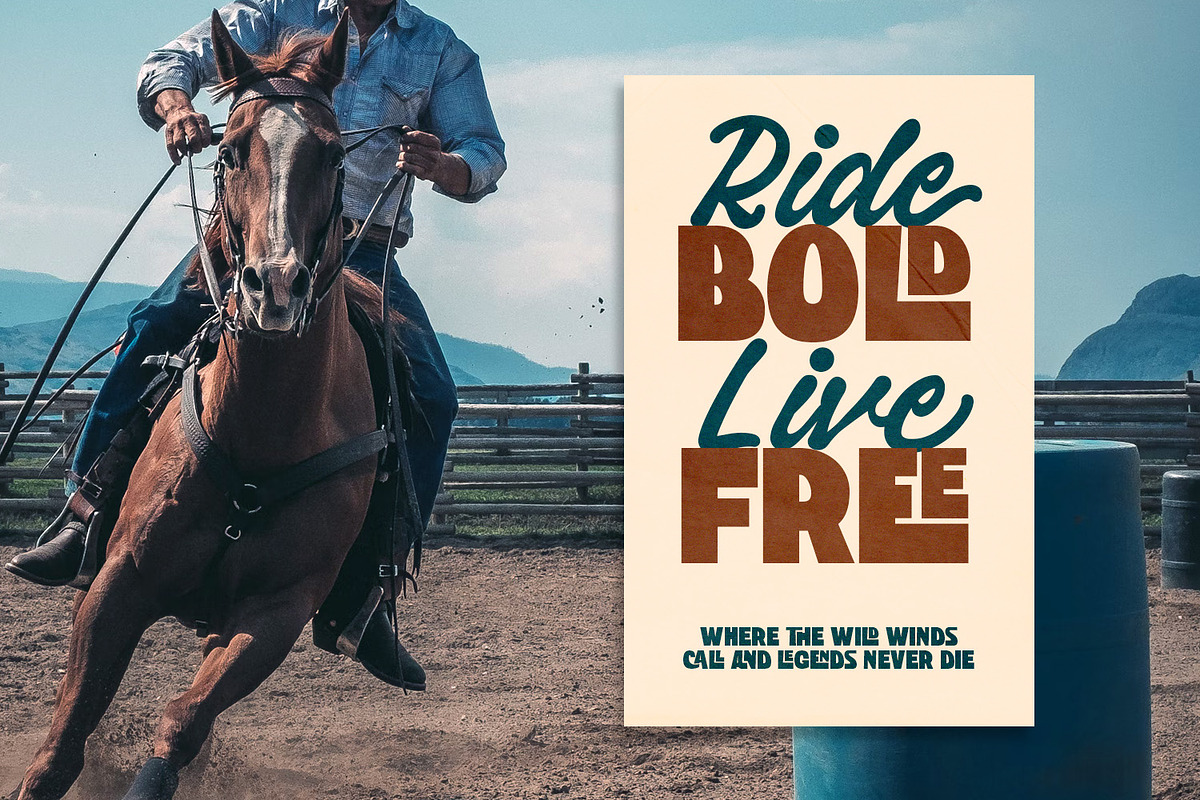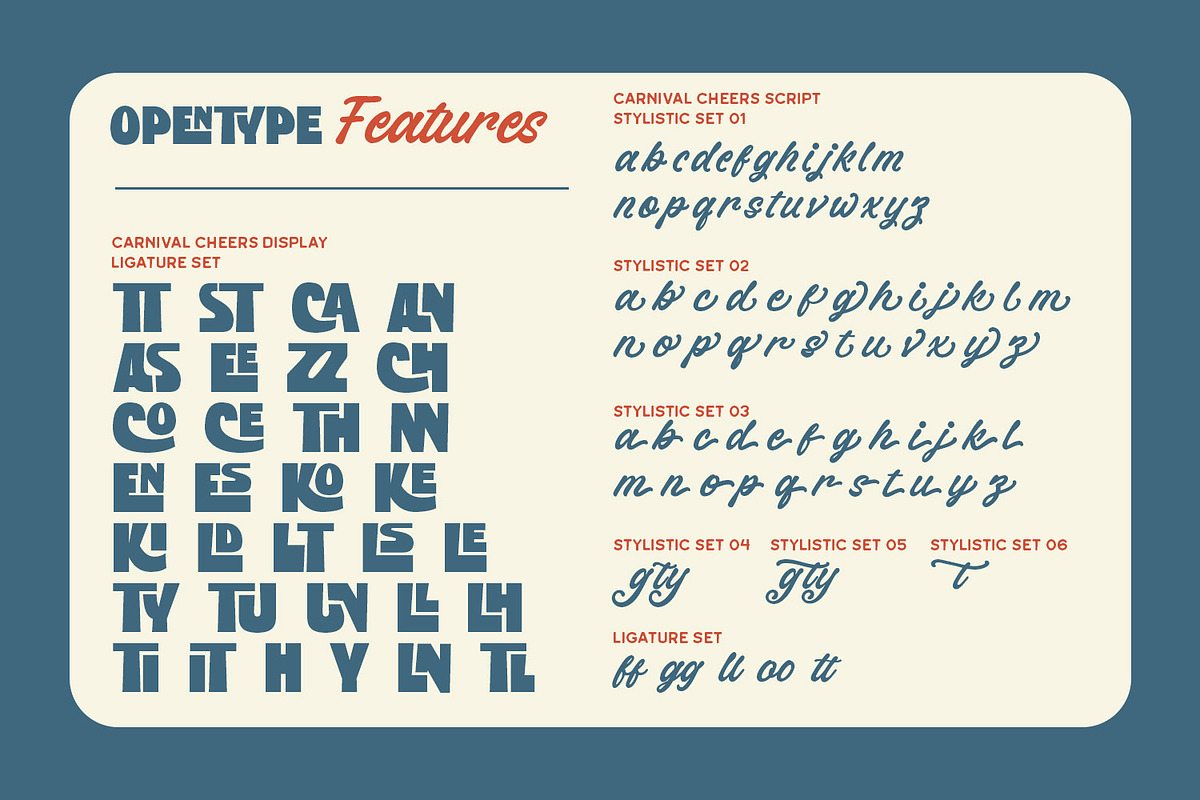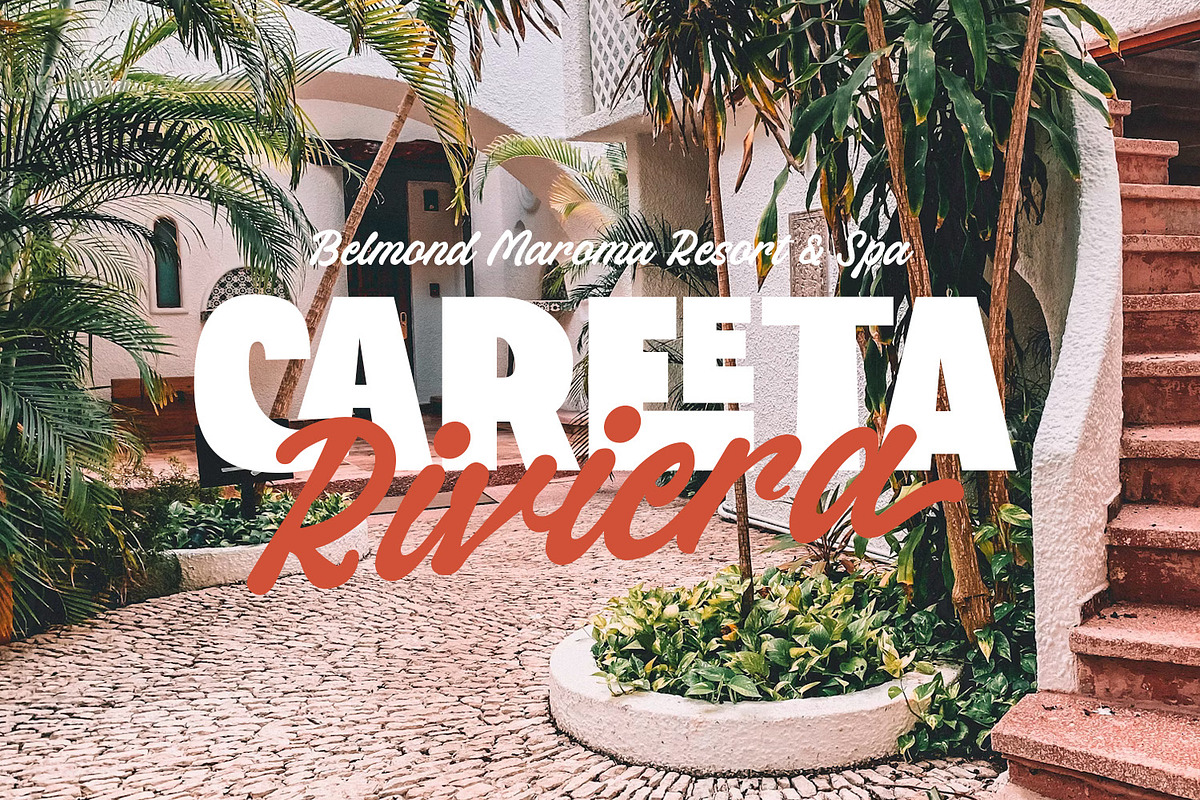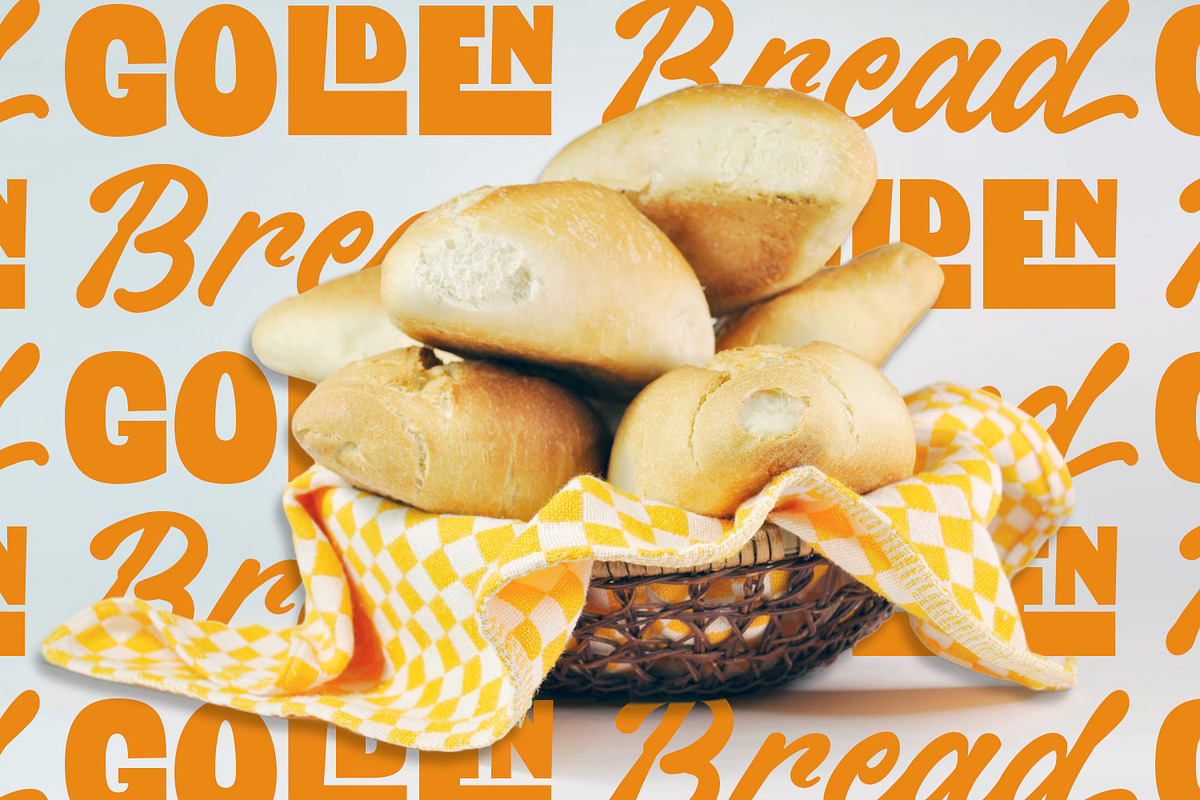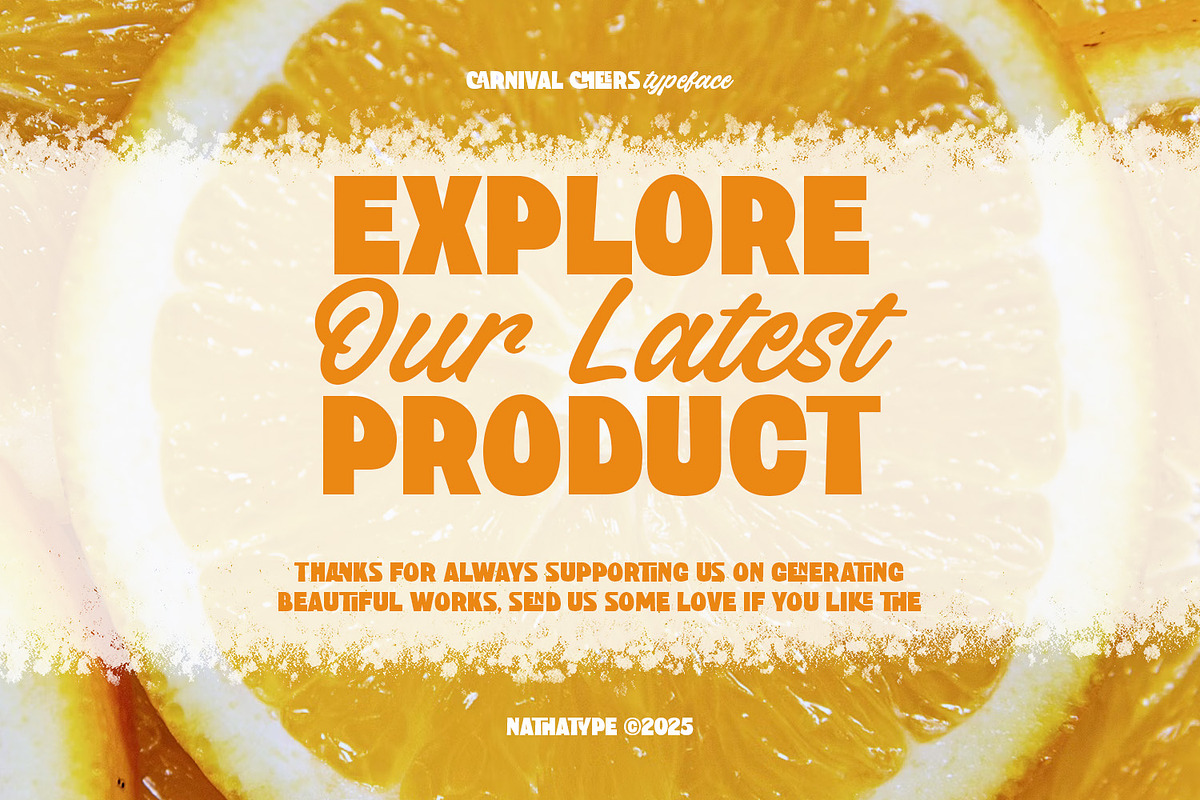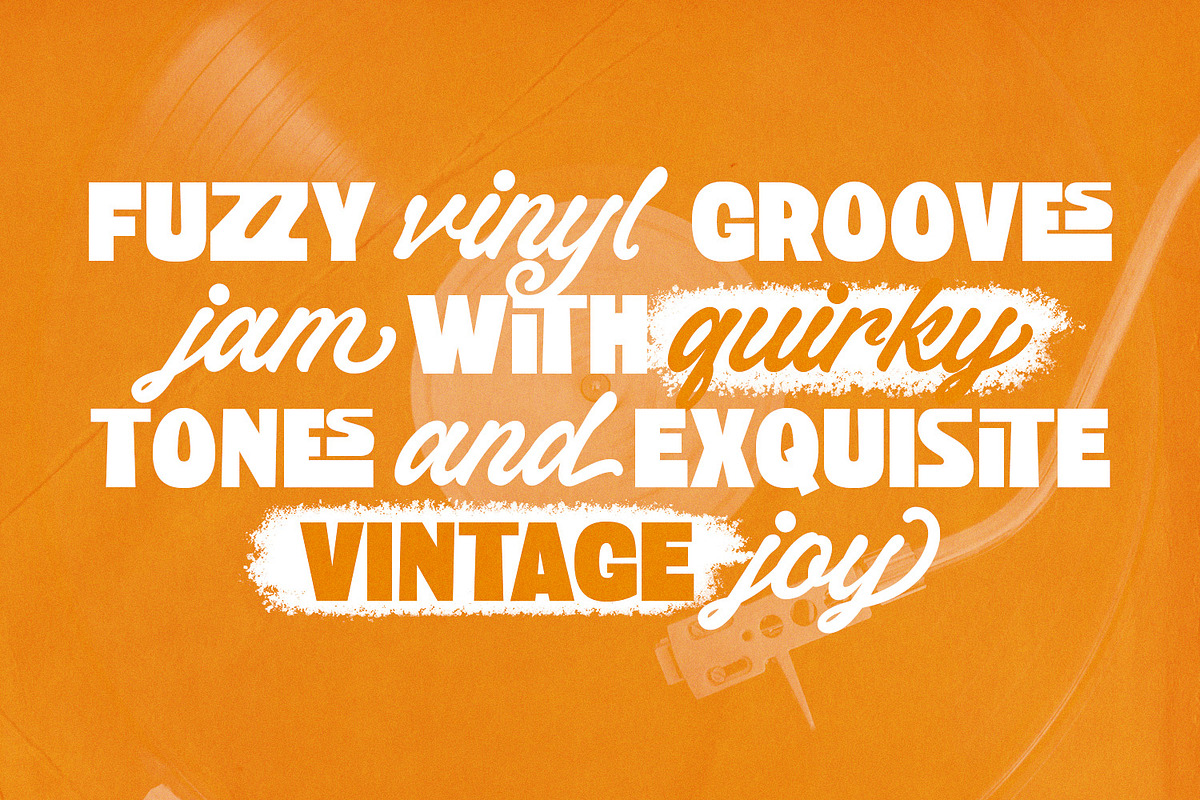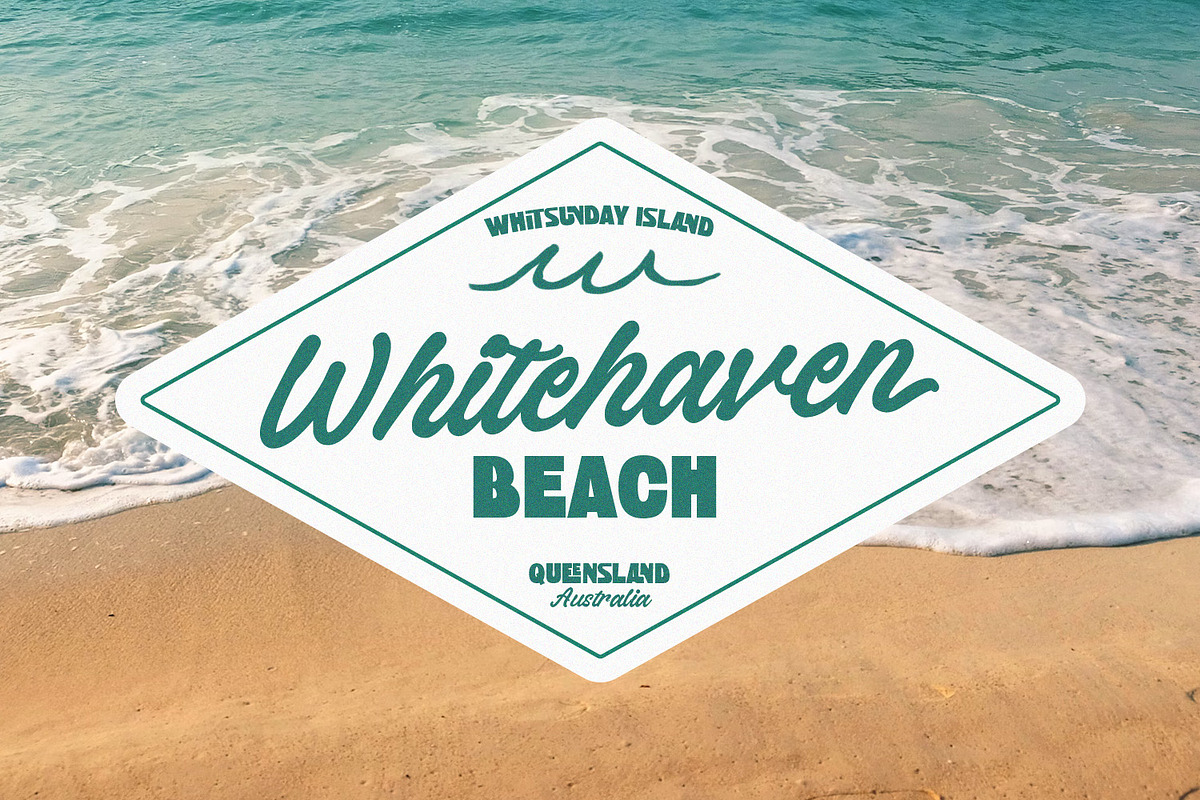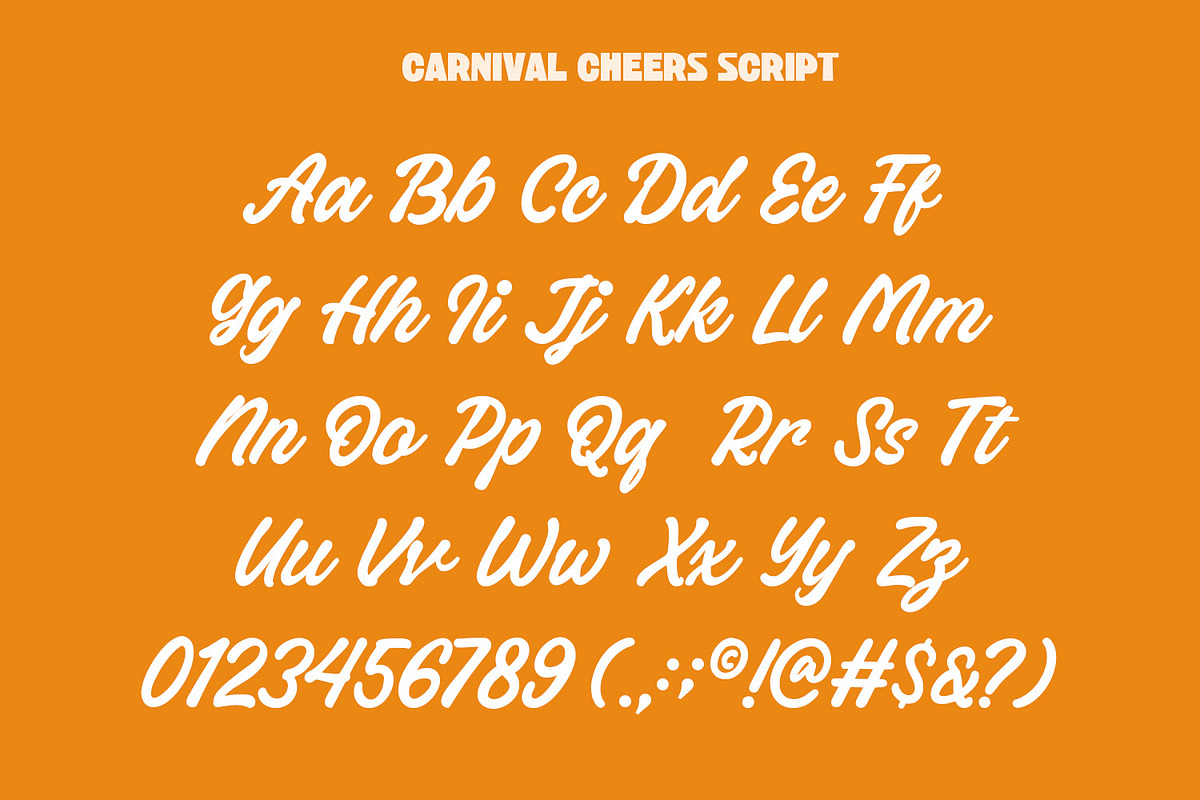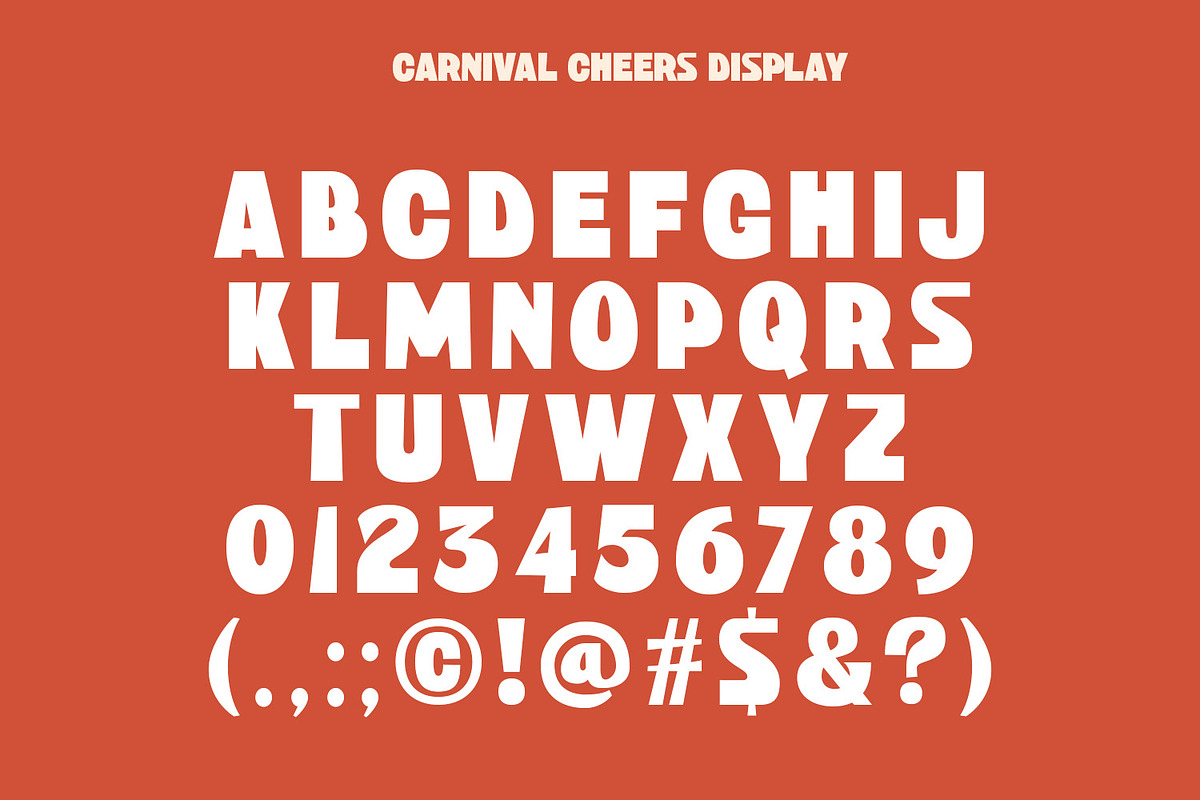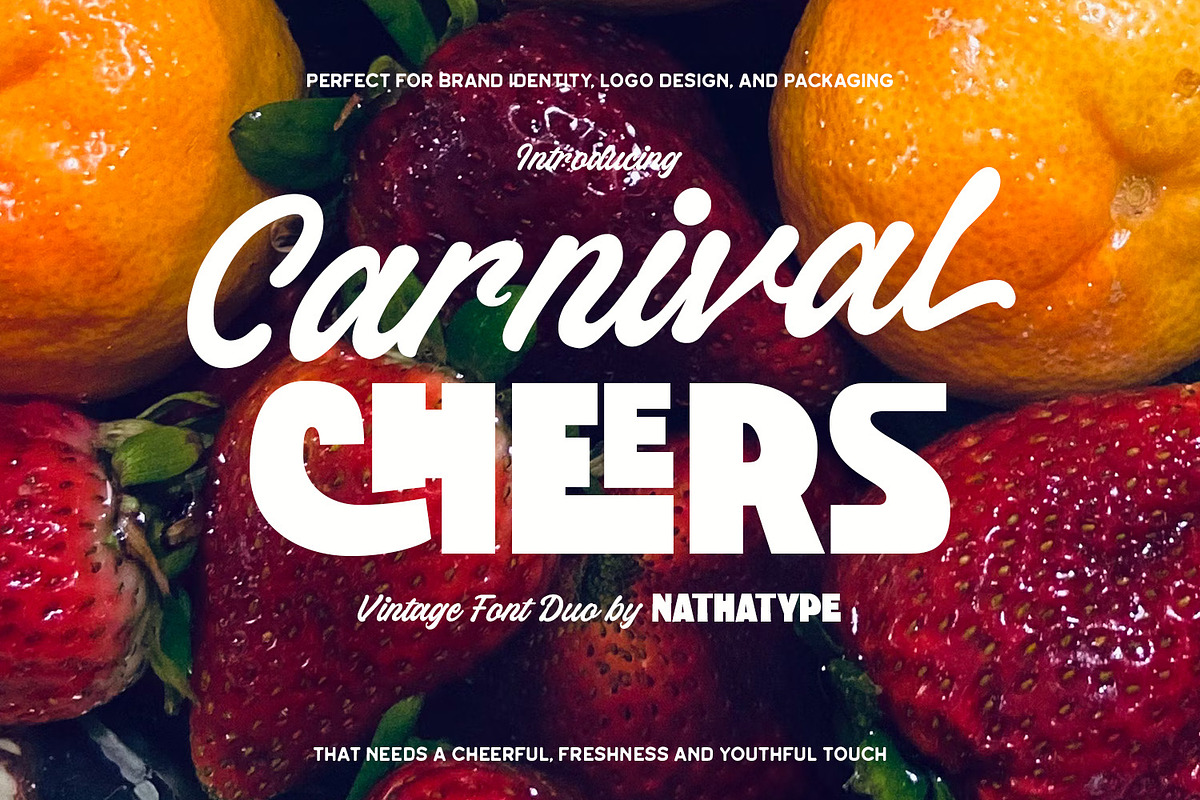
Carnival Cheers
Carnival Cheers is a handwritten display font duo that combines the beauty of cursive handwriting with the bold display. The handwritten font in Carnival Cheers is made in smooth, flowing strokes that resemble natural cursive handwriting with subtle contrast in each letterform. Its fluid lines and graceful movement make it perfect for adding a personal and stylish touch Complementing it, the display font is crafted with a bold weight and uppercases, designed to command attention while maintaining harmony with the script’s softness. In addition, enjoy the features here.
- Stylistic Sets
Carnival Cheers fits in branding, quotes, name cards, apparels, logos, posters, and many more designs. Find out more ways to use this font by taking a look at the font preview.